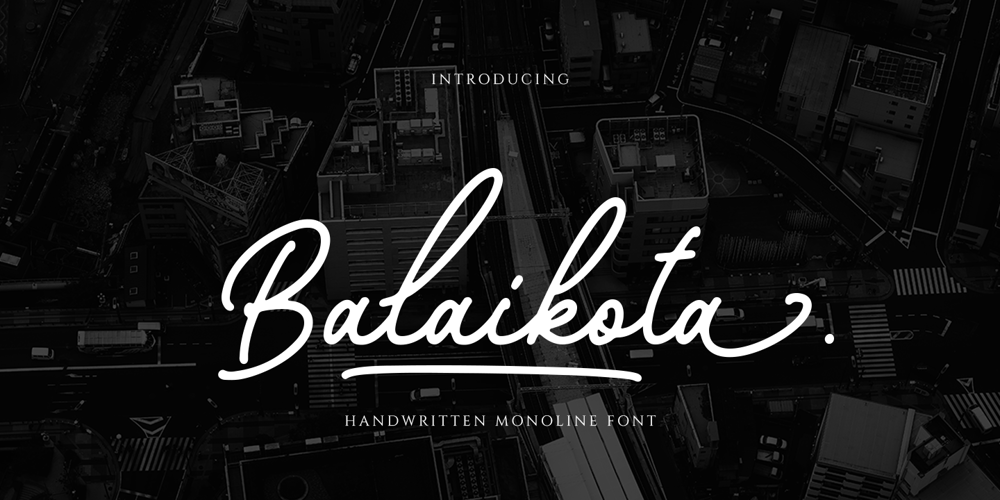
Balaikota Font Family was designed by Gustian Agung Asprilla and published by Rillatype. Balaikota contains 1 styles and family package options. Introducing, Balaikota. Balaikota is a handwritten monoline script font that designed to fit perfectly for your project. Balaikota also comes with multilingual support, alternates character and swash to make your design more stand out. to add the swash, simply type underscore + number (1-4) between the word. for example, Balai_2kota.